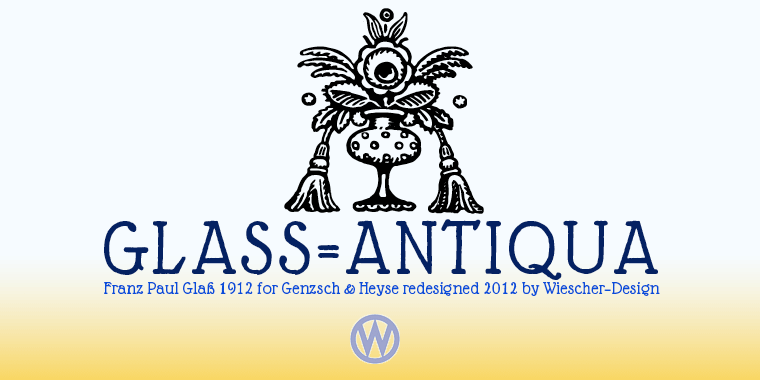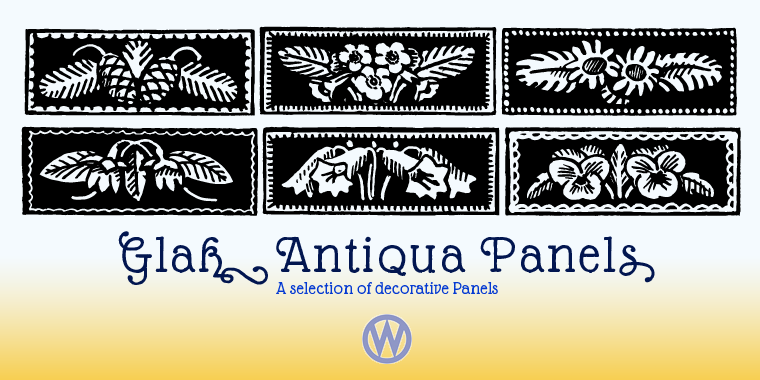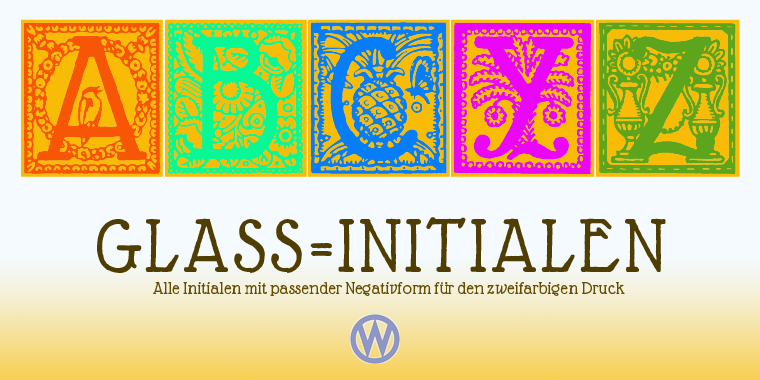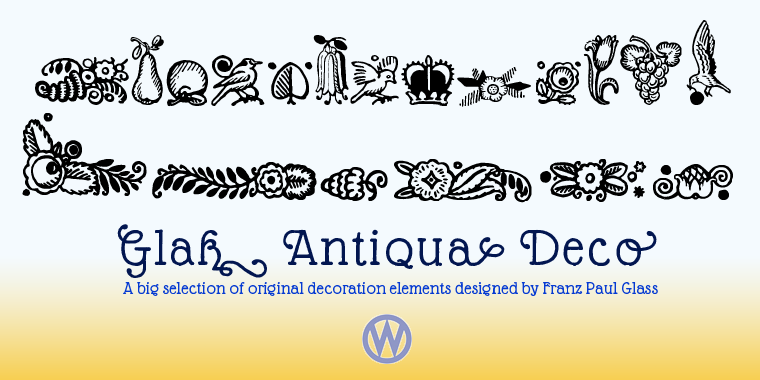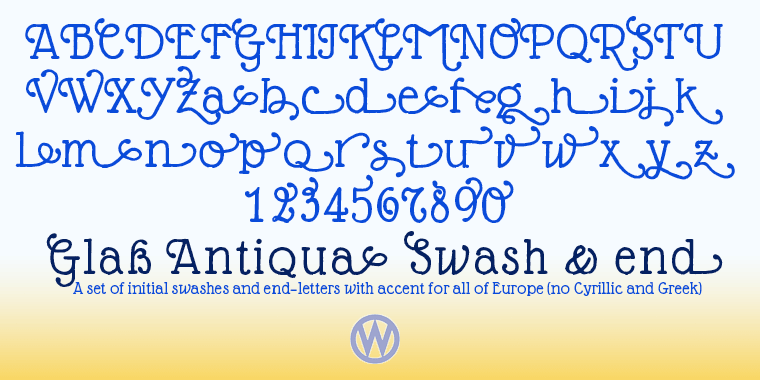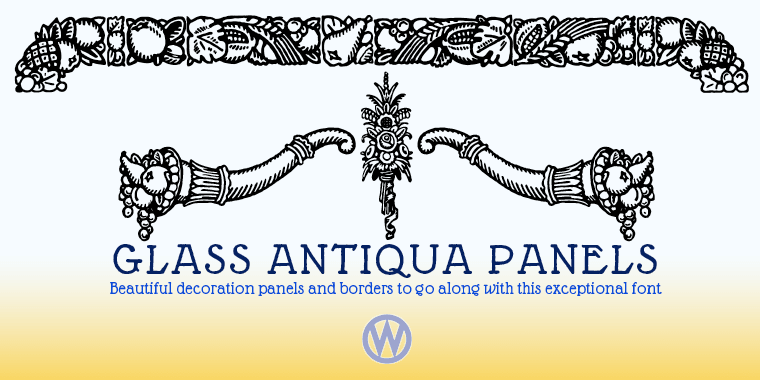
GlassLight is a multiple classification font family. This typeface has seven styles and was published by Wiescher-Design.
»Glass Light« was designed in 1912 by »Franz Paul Glass« for the »Genzsch & Heyse« foundry. The font is stylewise related to the »Lo types« of the same period. Glass designed a lot of decorative elements to go along with the font. I added Swashes, endletters and smallcaps to the set to make it complete. Since this type of font will probably not be used by many professionals, I did not put all the letters into one big OTF-version since most people don’t have OTF-savy software. These fonts can and should be mixed for optimal results. Your decorative designer Gert Wiescher